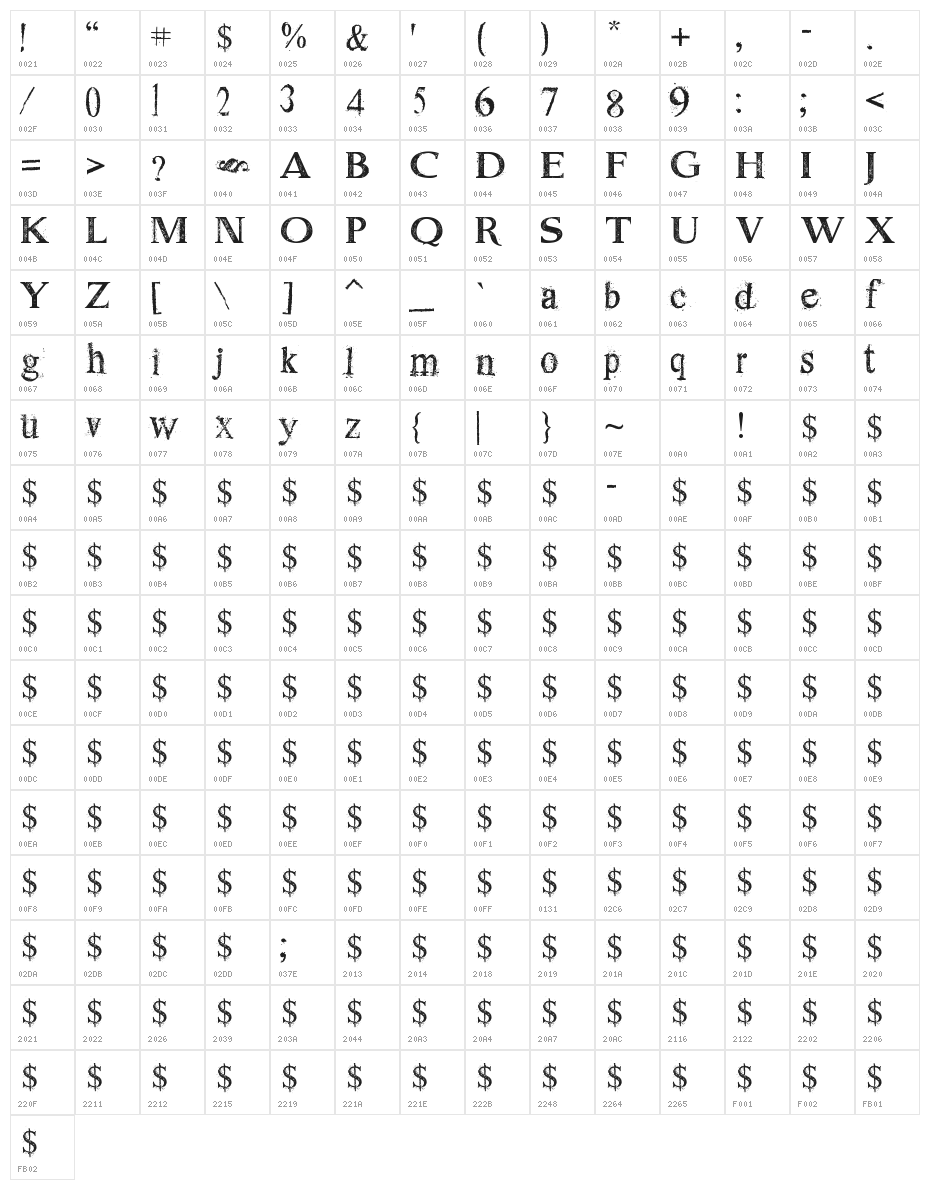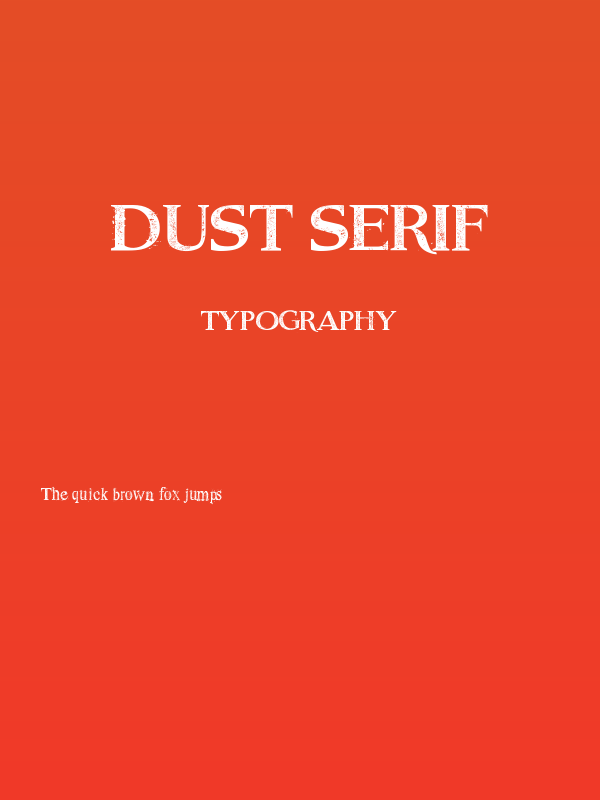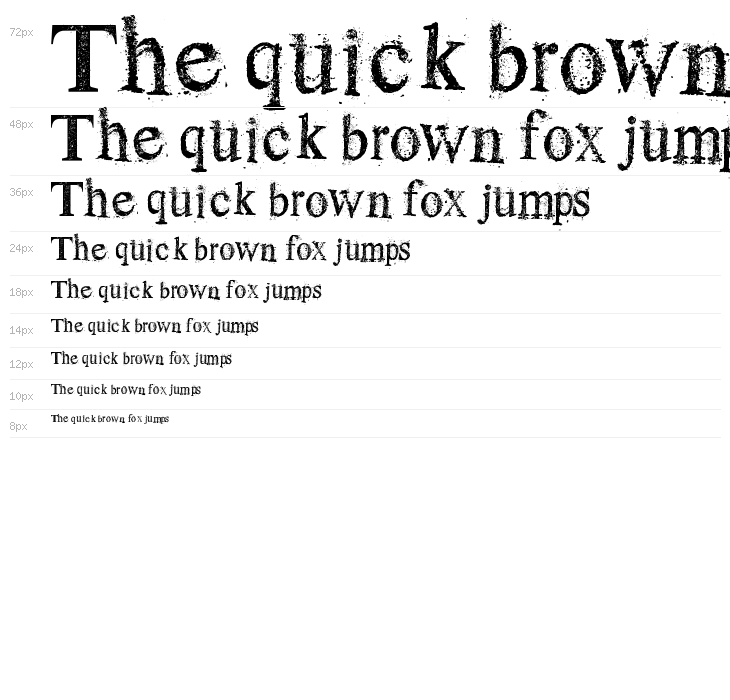
Dust Serif Font
Dust Serif Description
This font features a distressed, textured appearance that gives it a weathered and vintage feel. The serif style is prominent, with each character displaying a rough, grainy texture that mimics the look of aged print or worn-out typewriter text. The uppercase and lowercase letters maintain a classic serif structure, while the numbers and special characters follow suit with the same distressed aesthetic. This font's unique style makes it ideal for projects that require a rustic or antique look, adding character and depth to any design.
| Use Case | Headlines, Logos, Decorative text |
| Proposed Projects | Ideal for vintage-themed posters, book covers, branding for rustic products, or any design needing an aged, textured look. |